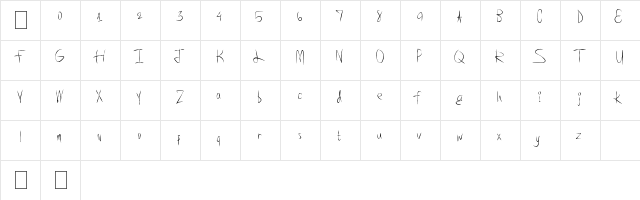
SuperAwesome Regular
Design Context for SuperAwesome Typeface
SuperAwesome is a composed and adaptable typeface that performs quietly and consistently across a wide range of design contexts.